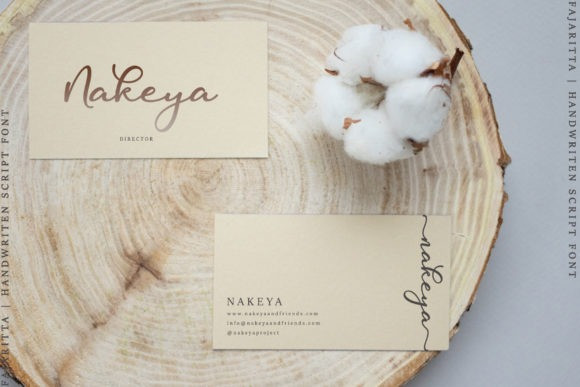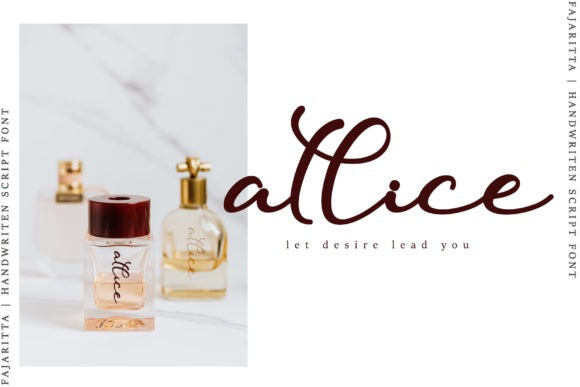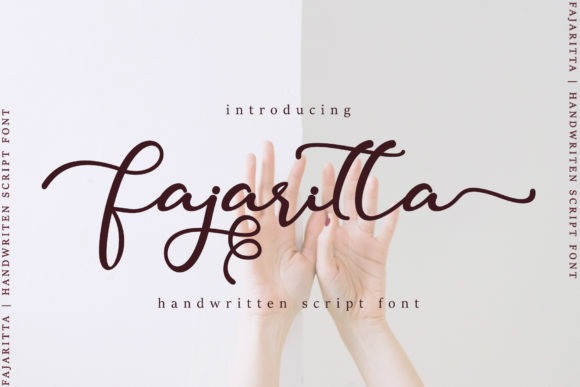
Fajaritta Font
Fajaritta Font is a delicate and elegant handwritten font. Its distinct and well-balanced letters make this font a masterpiece. It looks stunning on your branding, quote, greetings card, wedding stationery, etc.